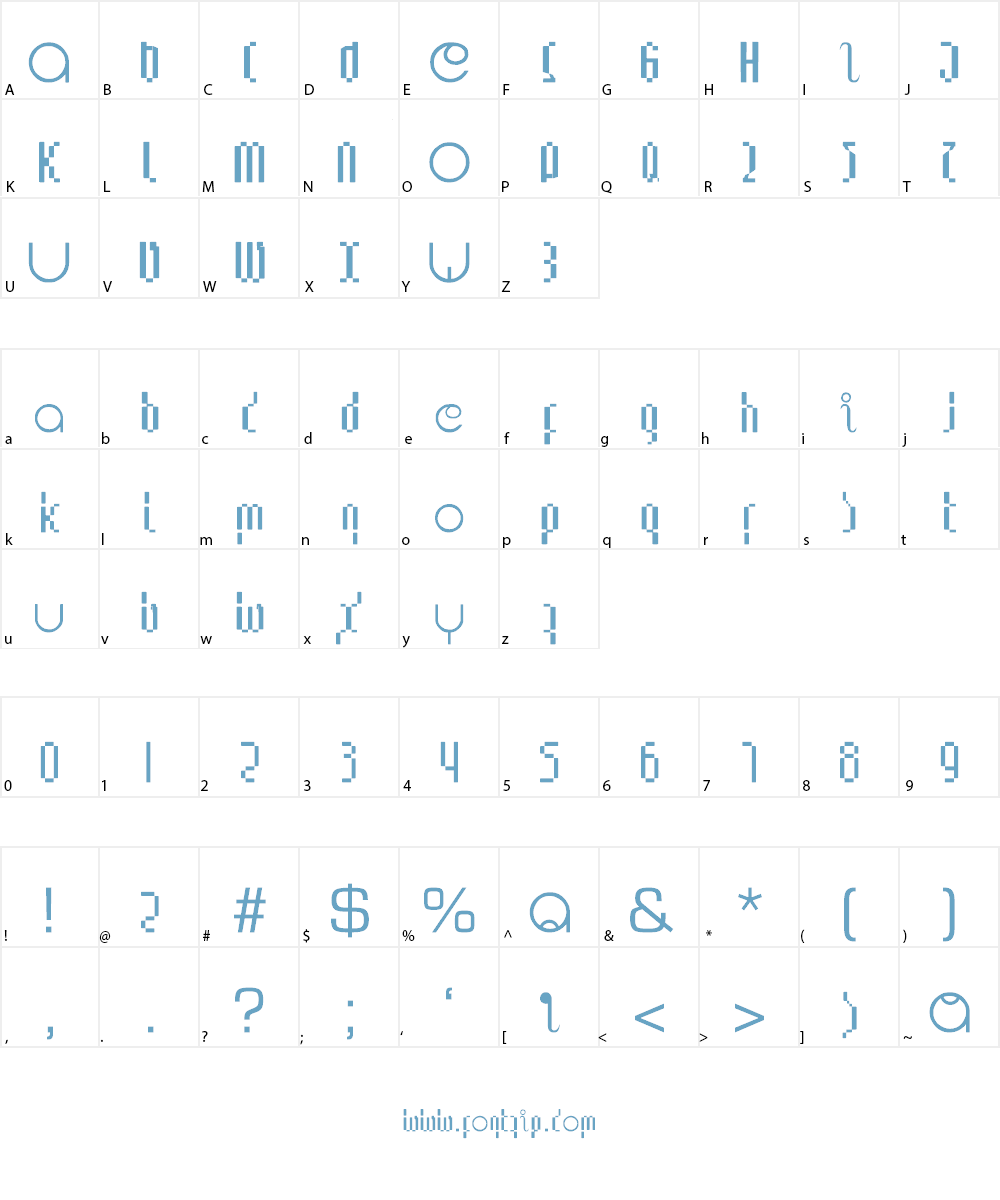
Lupanesque consqueezed font (a variant of mixqueezed) is a mix of rounded vowels and squeezed consonants.
In lower case all consonants are bigger than vowels.